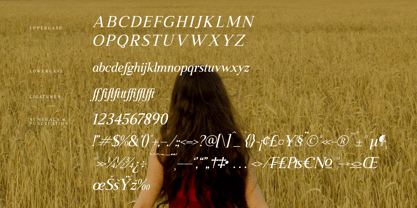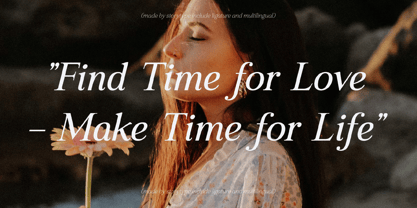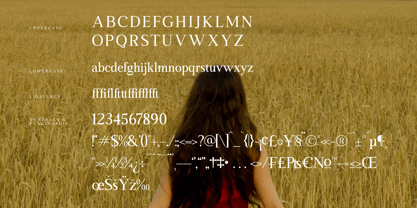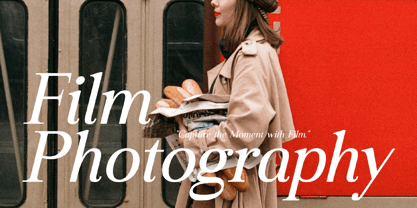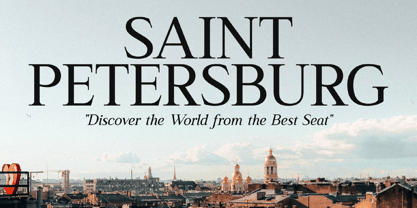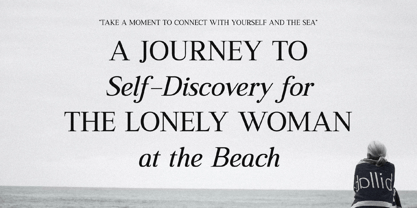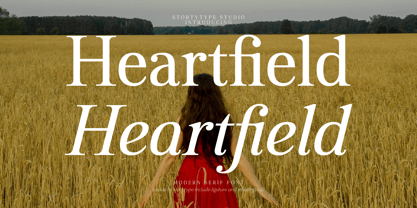
Heartfield
The Heartfield Font Family was designed by Heru Utama Putra and published by Letterena Studios. Heartfield contains 2 styles and family package options.
Proudly present Heartfield Typeface , created by Storytype,
A serif modern and classic typeface that has own unique style & modern look.
This typeface is perfect for an elegant & luxury logo, book or movie title design, fashion brand, magazine, clothes, lettering, quotes, and so much more.